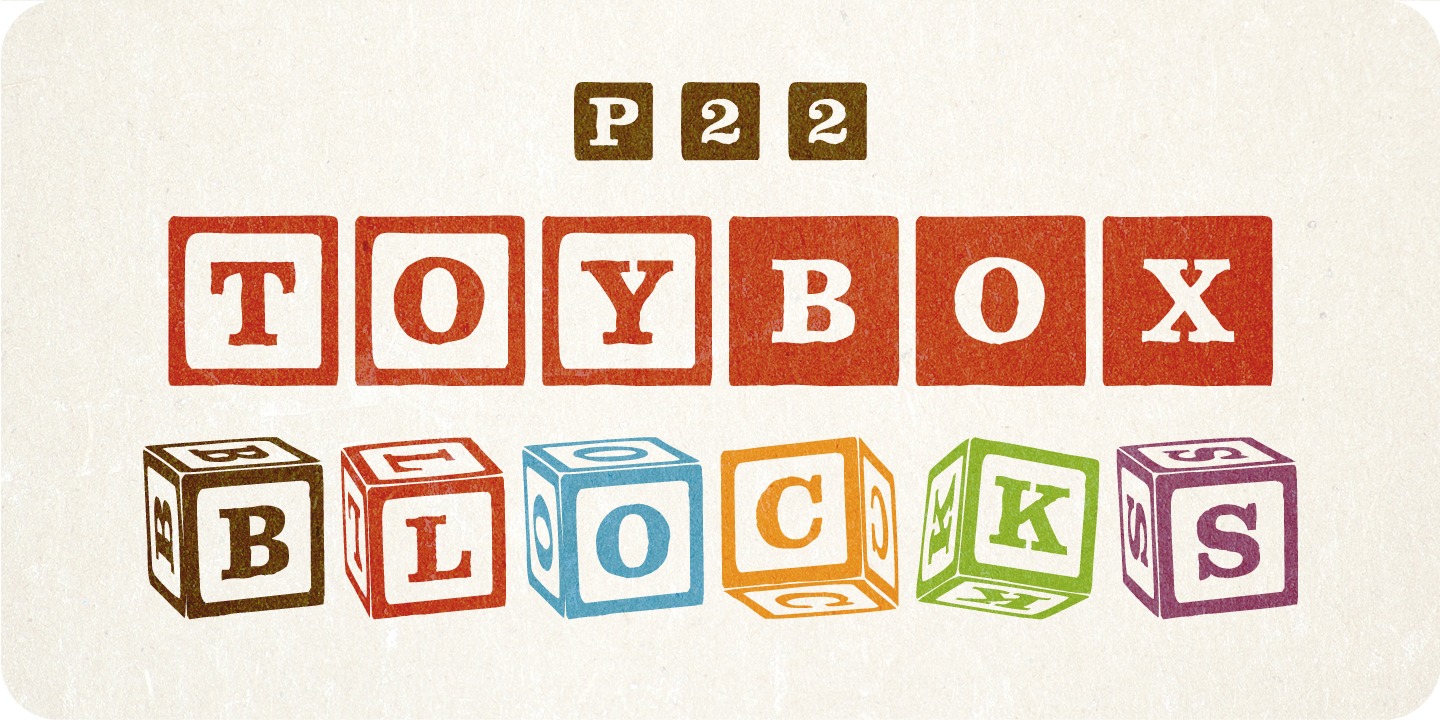
Toy Block Alphabet Font Miliki Fonts P22 Toy Box Blocks Font Free Download You can use the p22 toybox blocks to create interesting designs, covers, shop and store name and logos. Experience the p22 toybox blocks regular font on windows, mac, and linux with our instant preview feature. See how to download p22 toybox blocks line for free! See how to download p22 toybox blocks solid for free! Check out examples of the. P22 Toy Box Blocks Font Free Download.
Toy Block Font P22 Toy Box Blocks Font Free Download See how to download p22 toybox blocks solid for free! You can use the p22 toybox blocks to create interesting designs, covers, shop and store name and logos. See how to download p22 toybox blocks line for free! P22 toybox blocks solid is the perfect font for all your fun designs. Download the p22 toy box complete family pack font. P22 Toy Box Blocks Font Free Download.